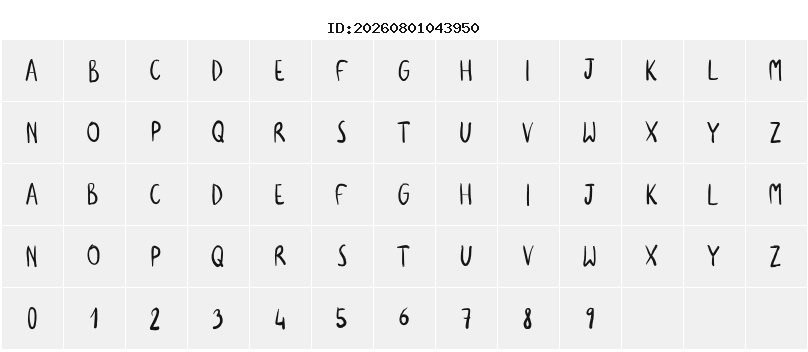
• Font Name: Labai
• Manufacturer: PatchPo
About Labai.otf
Labai.otf is a modern, elegant sans-serif font designed for ultimate readability and visual harmony. Perfect for branding, headlines, web design, and print materials.